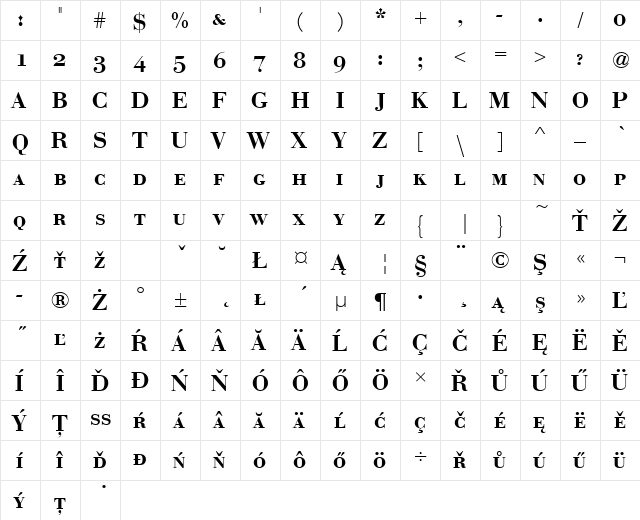
BauerBodSCDEEDemBol Regular
BauerBodSCDEEDemBol takes a measured approach to typography — its balanced proportions and neutral character make it a reliable workhorse for both digital and print work.